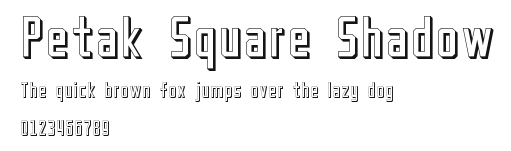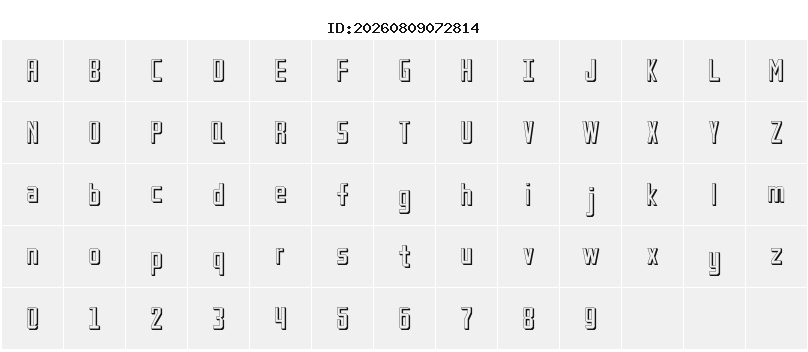
• Font Name: Petak Square Shadow
• Designer: Rizki Alisaptamarza
About Petak Square Shadow.ttf
Petak Square Shadow.ttf is a modern, elegant sans-serif font designed for ultimate readability and visual harmony. Perfect for branding, headlines, web design, and print materials.